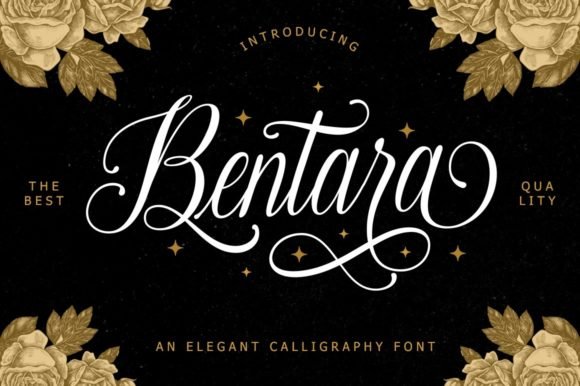
The Birth of a Unique Font: Bentara Font Have you ever sat down with a tablet, pen in hand, and let your creativity flow onto the screen? That’s exactly what happened when the Bentara Font was born. Written by hand using a tablet, this simple yet stylish font has captured the hearts of designers and…